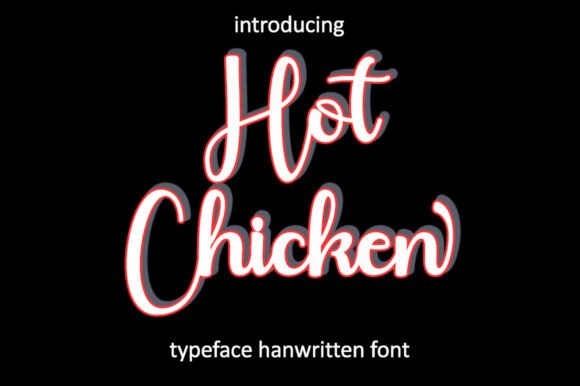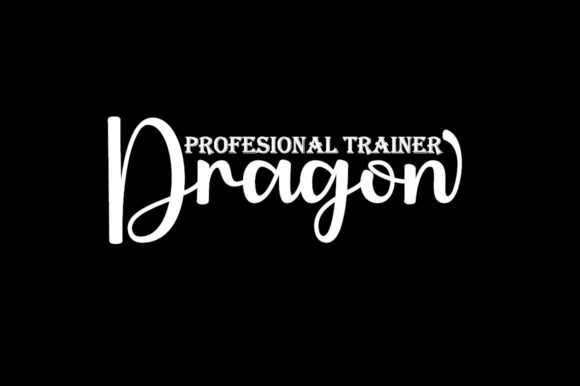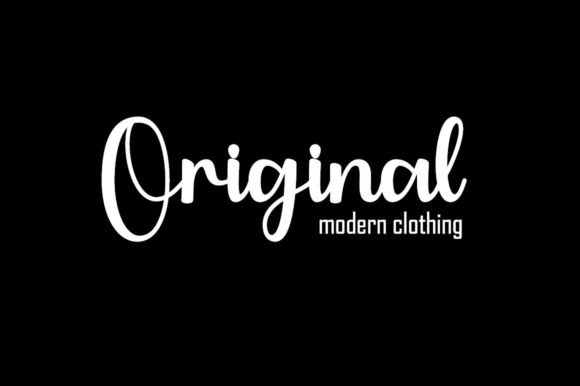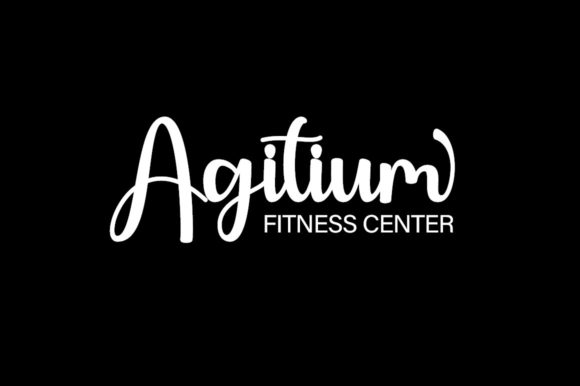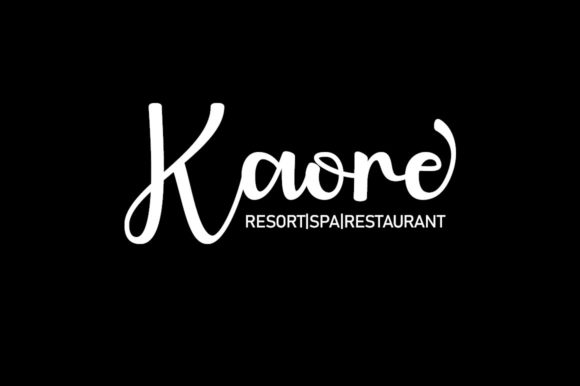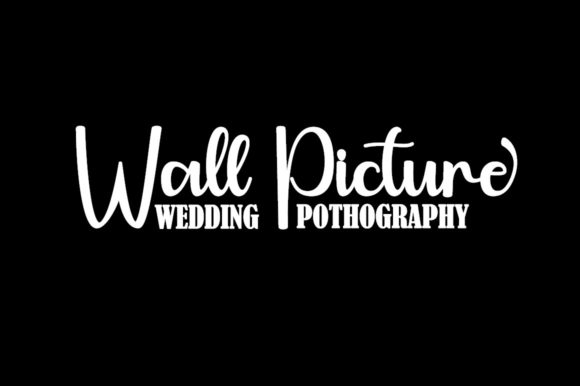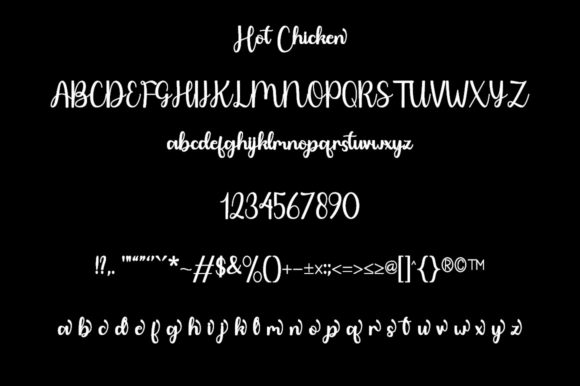
Falling for the Flair of Hot Chicken Font
As a designer, there’s nothing quite like the thrill of discovering a new font that speaks to your creative soul. It’s that moment when you stumble upon the perfect combination of style and whimsy, and you just can’t wait to bring it to life in your next project.
For those who are yet to experience this thrill, we’d like to introduce you to the ravishing Hot Chicken Font – a beautiful handwritten font designed to add a touch of elegance and sophistication to your designs. With its PUA encoding, you’ll have access to a wide range of glyphs and swashes, making it easy to create gorgeous, one-of-a-kind designs that truly stand out.
Whether you’re a seasoned designer or just starting out, the Hot Chicken Font is a valuable addition to any creative toolkit. Its unique style and versatility make it the perfect choice for designers who want to add a little extra flair to their work.
Hot Chicken Font Key Features
- Unique Characteristics: The font features a unique blend of modern and vintage elements, with a bold, hand-drawn feel and a touch of rustic charm.
- Customization Options: The font includes a range of customization options, including ligatures, swashes, and alternate characters, allowing designers to add a personal touch to their work.
Hot Chicken Font Review
Overall, I’d say Hot Chicken Font is a decent addition to any design project. It’s ✨ bold, eye-catching, and perfect for adding a touch of playfulness to your work.
The font’s unique style and lettering make it stand out from more traditional fonts. The varying line weights and subtle flair at the ends of letters give it a hand-drawn feel that’s ✨ hard to resist.
- ✨ Unique style and lettering make it perfect for creative projects
- ✨ Varying line weights and subtle flair add a touch of personality
- ✨ Works well for titles, headings, and short blocks of text
While Hot Chicken Font has its strengths, there are a few areas where it falls short:
- ⚠️ Limited legibility at small font sizes
- ⚠️ May not be suitable for long blocks of text due to its playful style
- ⚠️ Some users may find the font too loud or overwhelming
In conclusion, Hot Chicken Font is a fun and engaging font that’s perfect for adding a touch of personality to your designs. Just be mindful of its limitations and use it sparingly to avoid overwhelming your audience.
Use the Hot Chicken Font to add a touch of warmth and personality to your designs. Common use cases include:
- Restaurant menus and signage
- Food blog and recipe graphics
- Event invitations and promotional materials